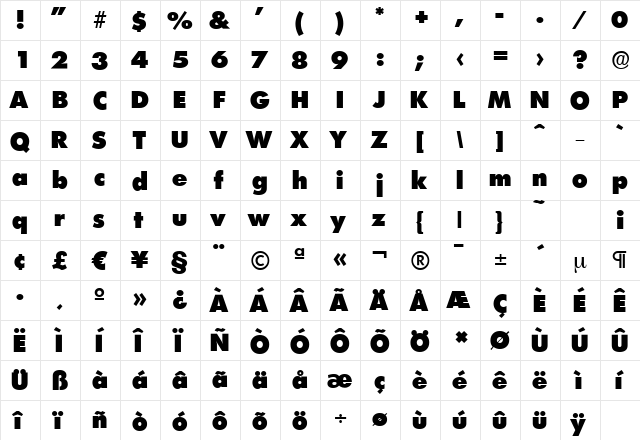
LimerickSerial-Heavy Regular Font Preview
LimerickSerial-Heavy Regular
Design Context for LimerickSerial-Heavy Typeface
LimerickSerial-Heavy takes a measured approach to typography — its balanced proportions and neutral character make it a reliable workhorse for both digital and print work.